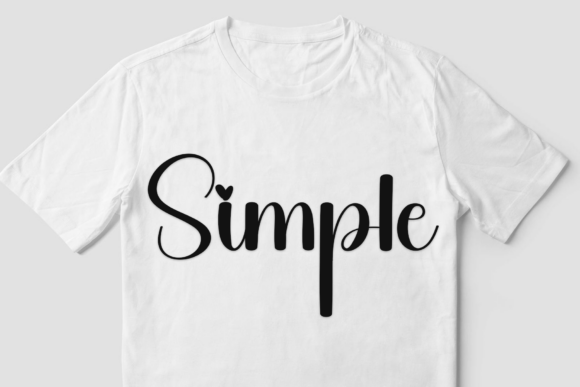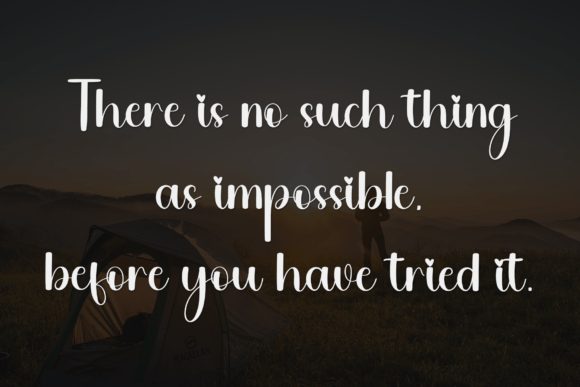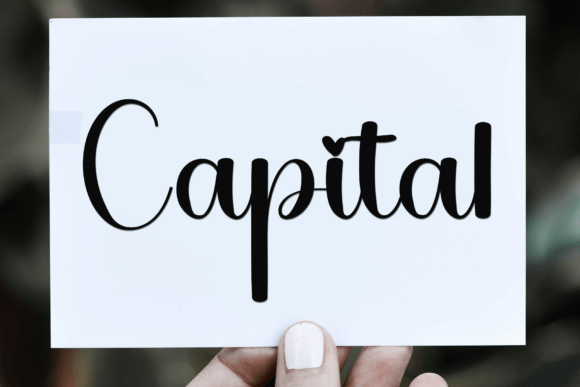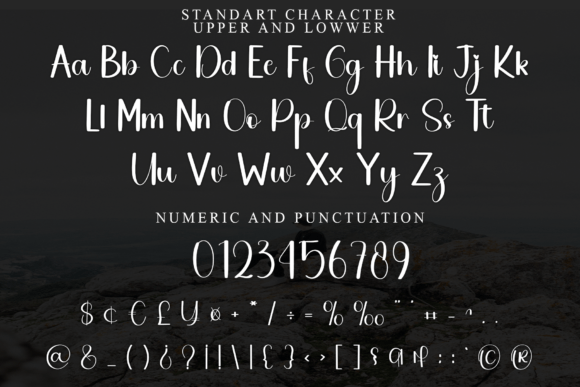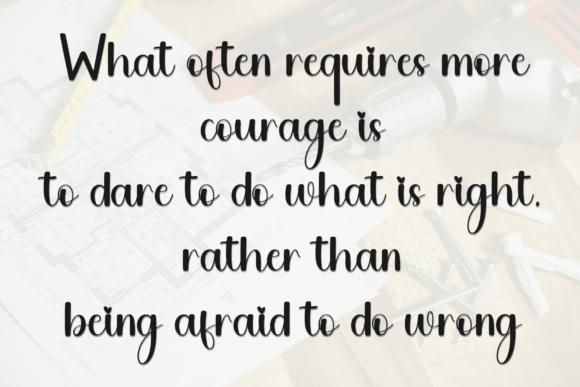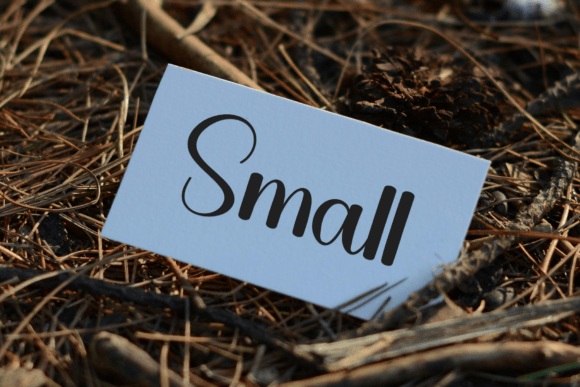
Introducing Handmade Cooking Font: Elevate Your Designs with a Unique Touch
In the world of typography, a font can make all the difference in the success of a design project. For crafters, designers, and creative enthusiasts, finding the perfect font that adds a personal touch can be a daunting task. That’s where Handmade Cooking Font comes in – a beautiful, eye-catching font designed with a soft, unique touch that is sure to elevate your designs.
The Distinctive Character of Handmade Cooking Font
Handmade Cooking Font boasts distinctive strokes that give it a special character, making it meaningful and versatile for future use. Its unique design ensures that your creative projects stand out from the crowd, adding a personal touch that resonates with audiences across various artistic and creative fields. Whether you’re working on a design project, crafting, or other creative endeavors, this font is perfect for adding a touch of warmth and personality.
Key Features of Handmade Cooking Font
- Unique and Soft Design: Handmade Cooking Font features a soft, unique touch that sets it apart from other fonts.
- Versatile and Meaningful: Its distinctive strokes make it meaningful and versatile for a wide range of design projects and creative applications.
- Various Characters: The font comes with a variety of characters, ensuring that you have ample options for your design needs.
Applications of Handmade Cooking Font
The versatility of Handmade Cooking Font makes it suitable for a wide range of products and creative projects. Some of the areas where this font can make a significant impact include:
- Design Projects: From branding and advertising to packaging and web design, Handmade Cooking Font can add a unique touch to your visual creations.
- Crafts: Whether you’re working on handmade cards, DIY crafts, or other creative projects, this font can help you add a personal and artistic touch.
- Creative Works: For artists, illustrators, and writers, Handmade Cooking Font offers a distinctive style that can enhance the visual appeal of your work.
Why Choose Handmade Cooking Font?
With so many fonts available, why choose Handmade Cooking Font? Here are a few compelling reasons:
- Enhance Your Designs: This natural font style has the power to transform your designs, making them more appealing to a wide audience.
- Perfect for Creative Projects: Whether you’re a professional designer or a crafting enthusiast, Handmade Cooking Font is an excellent choice for adding a unique touch to your creative projects.
Handmade Cooking Font is more than just a font – it’s a creative tool that can elevate your designs and add a personal touch to your projects. Its unique design, versatility, and wide compatibility make it an ideal choice for designers, crafters, and creative enthusiasts. By incorporating Handmade Cooking Font into your workflow, you’ll be able to create stunning designs that resonate with audiences across various artistic and creative fields.